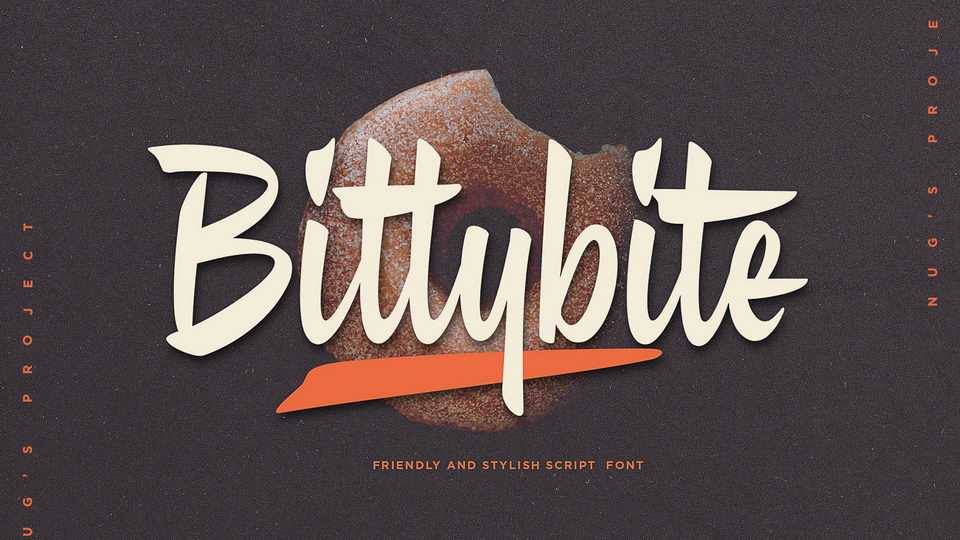
Download Bittybite font, a friendly and fun handwritten typeface with a unique style. Fall in love with Bittybite authentic charm.
Designer: Nug’s Project